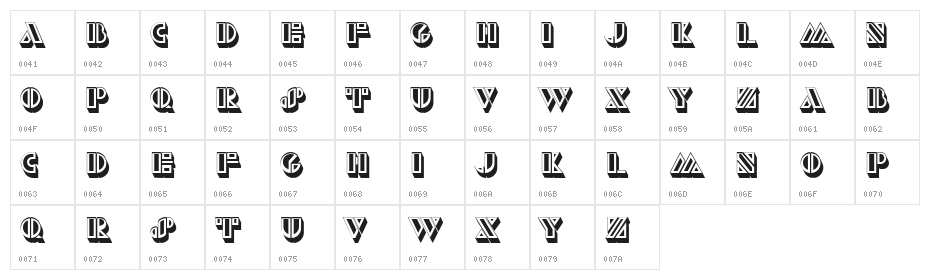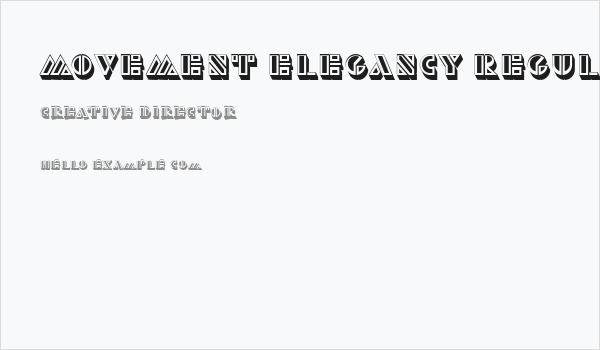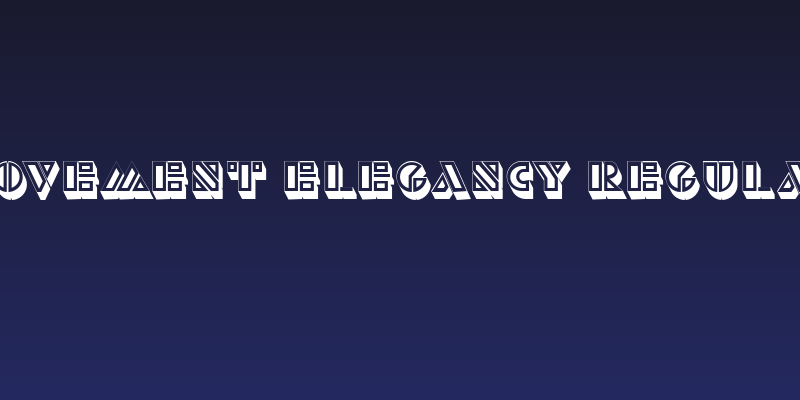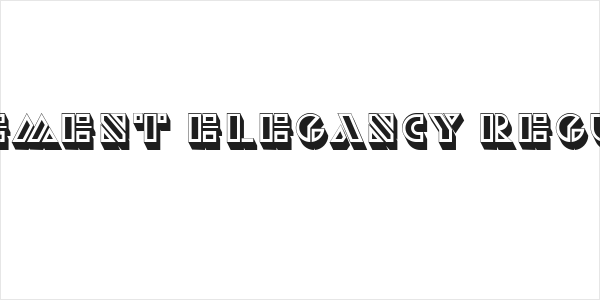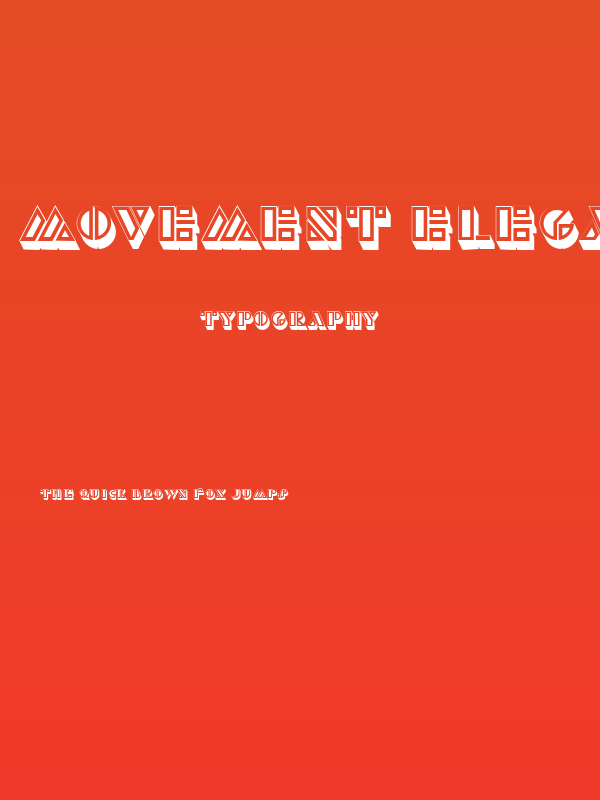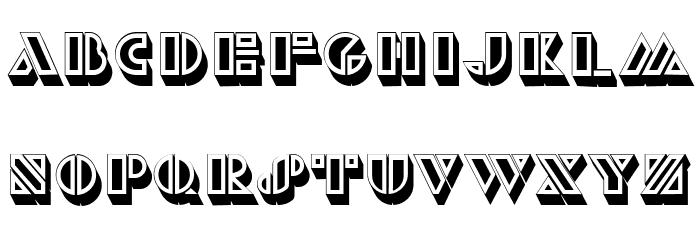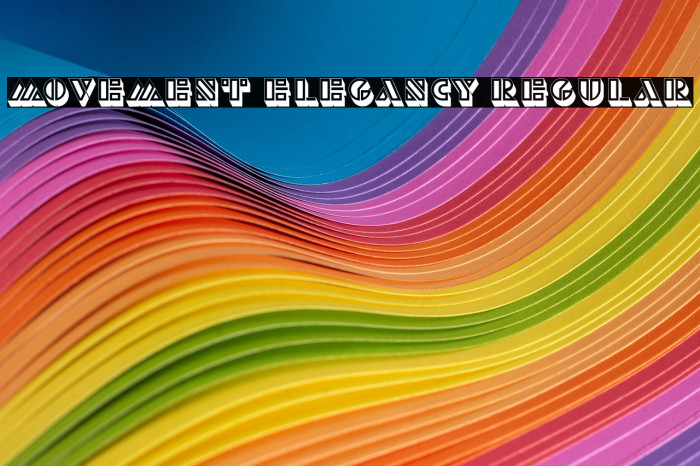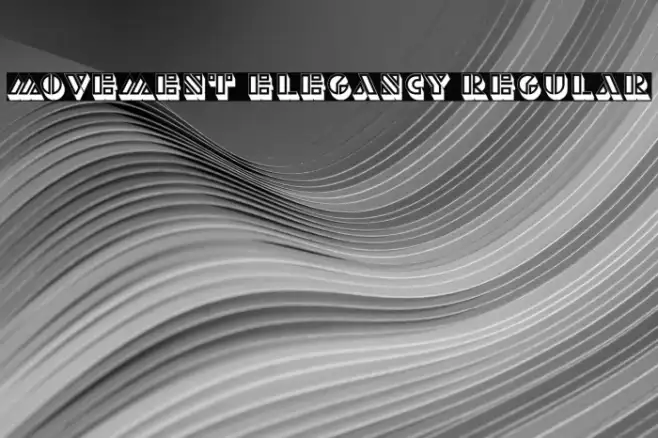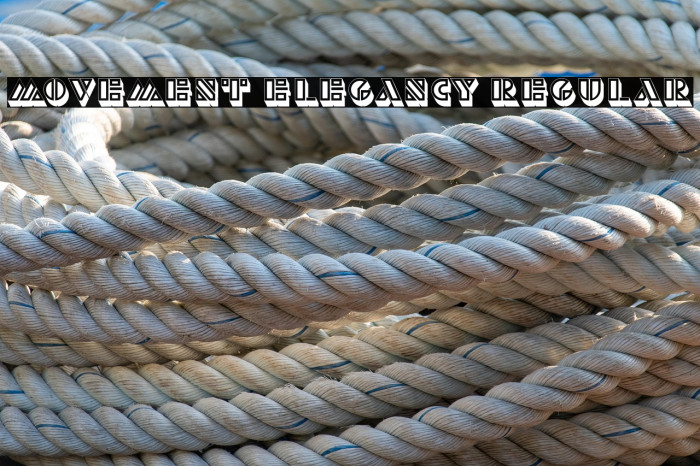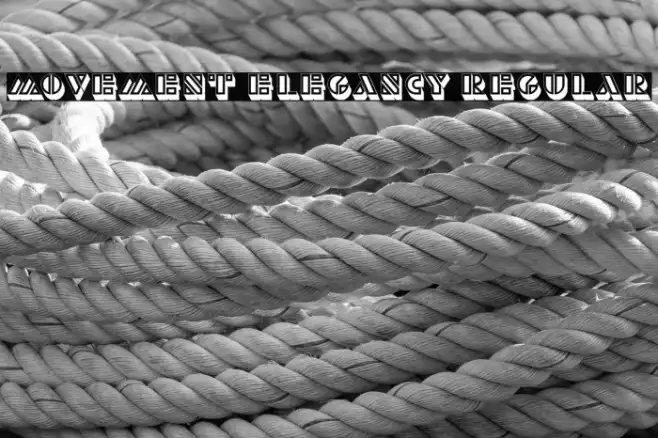
Movement Elegancy Regular Font
✎ Art Deco
Movement Elegancy Regular Description
This font features a bold and dynamic 3D effect, with each character having a shadow that gives it depth and a sense of movement. The letters are uppercase and have a geometric, angular design that adds to their striking appearance. The style is reminiscent of art deco, with clean lines and a modern twist. The font's unique structure makes it stand out, making it ideal for attention-grabbing headlines or titles. Its boldness and distinctiveness make it unsuitable for body text but perfect for creative projects where a strong visual impact is desired.
| Proposed Projects | Perfect for posters, logos, branding, and any design requiring a bold, eye-catching typeface. |